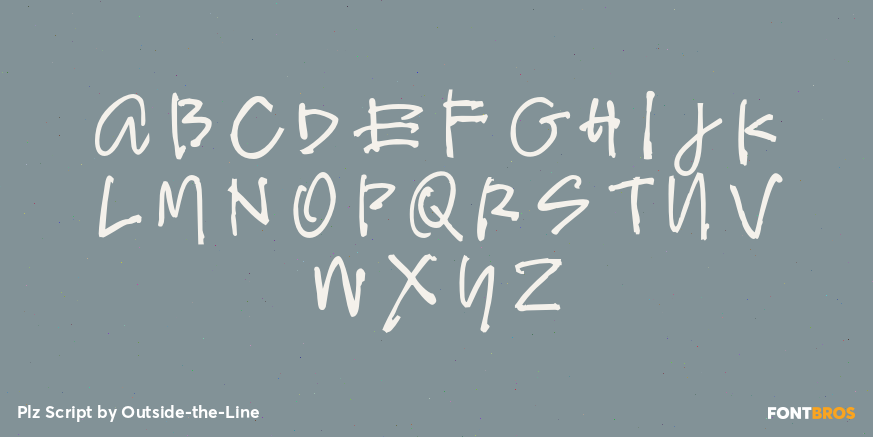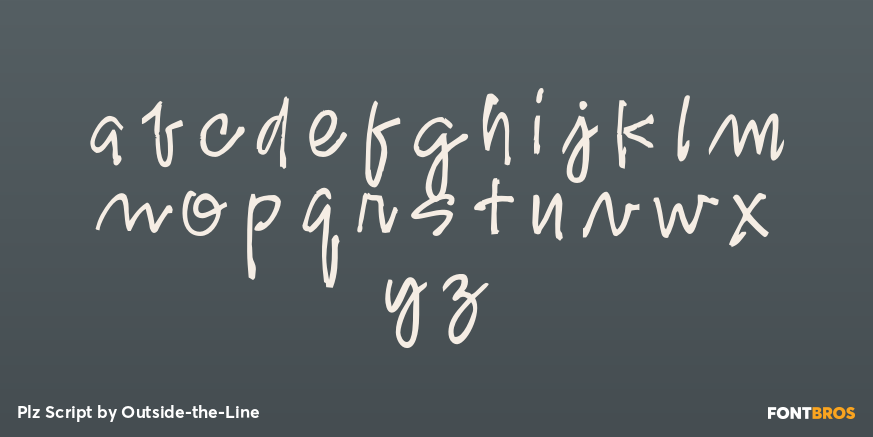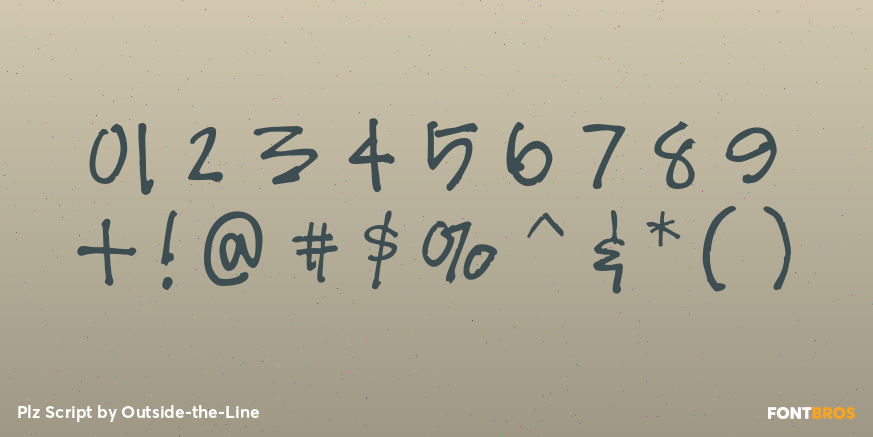
Plz Script
Font Family by Outside-the-Line
Plz Script is a warm and friendly script font that can be used as body copy or for headlines. Great with Architectural Letter or Plz Print.